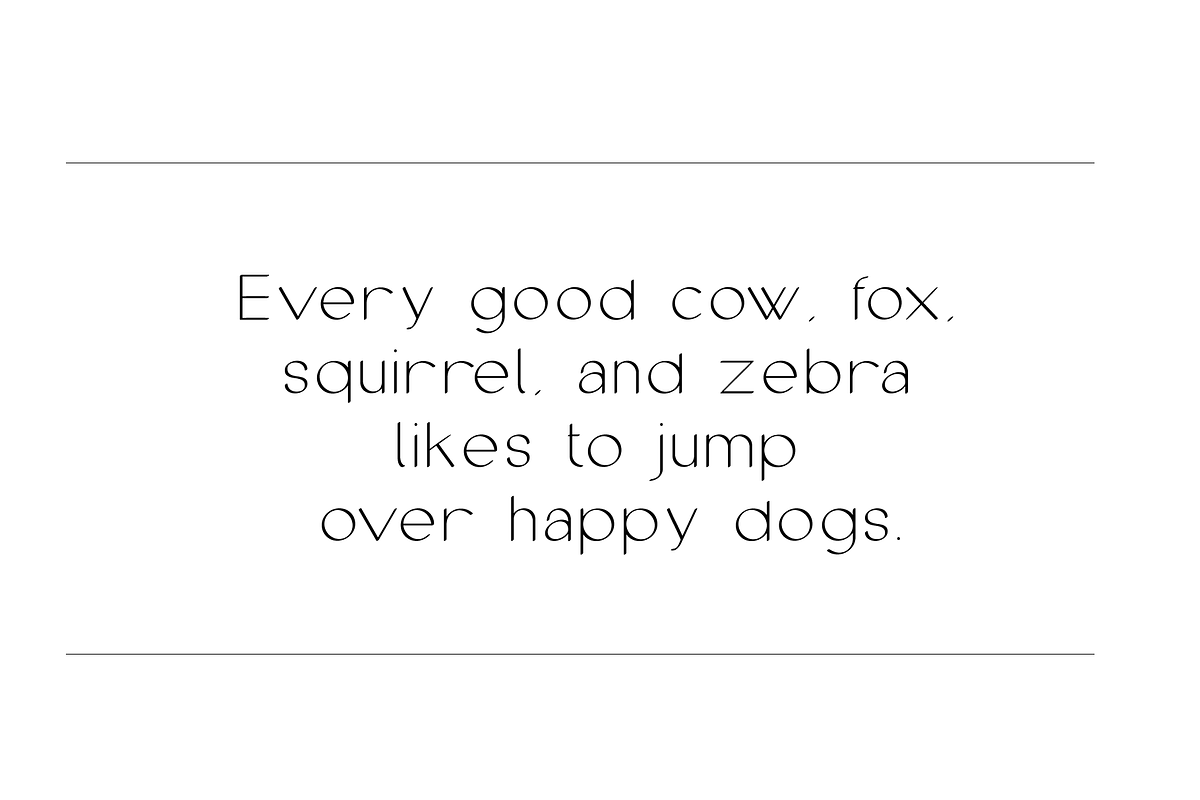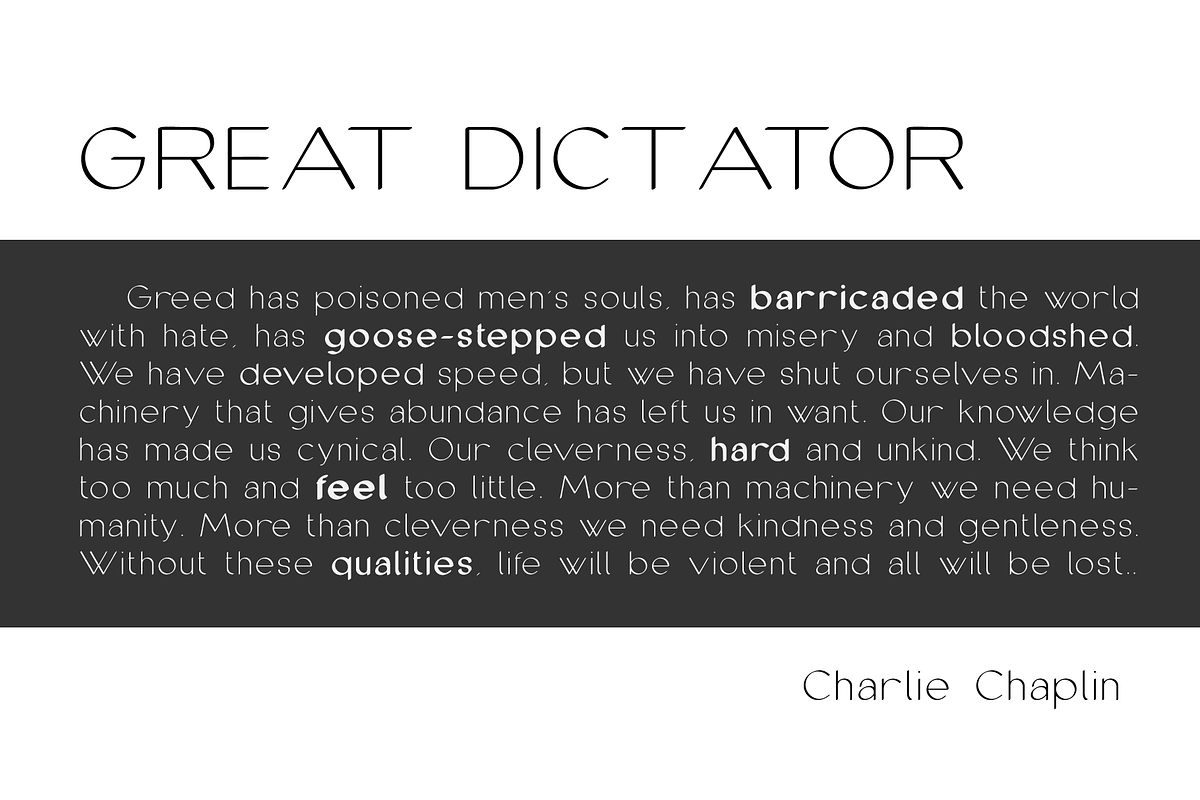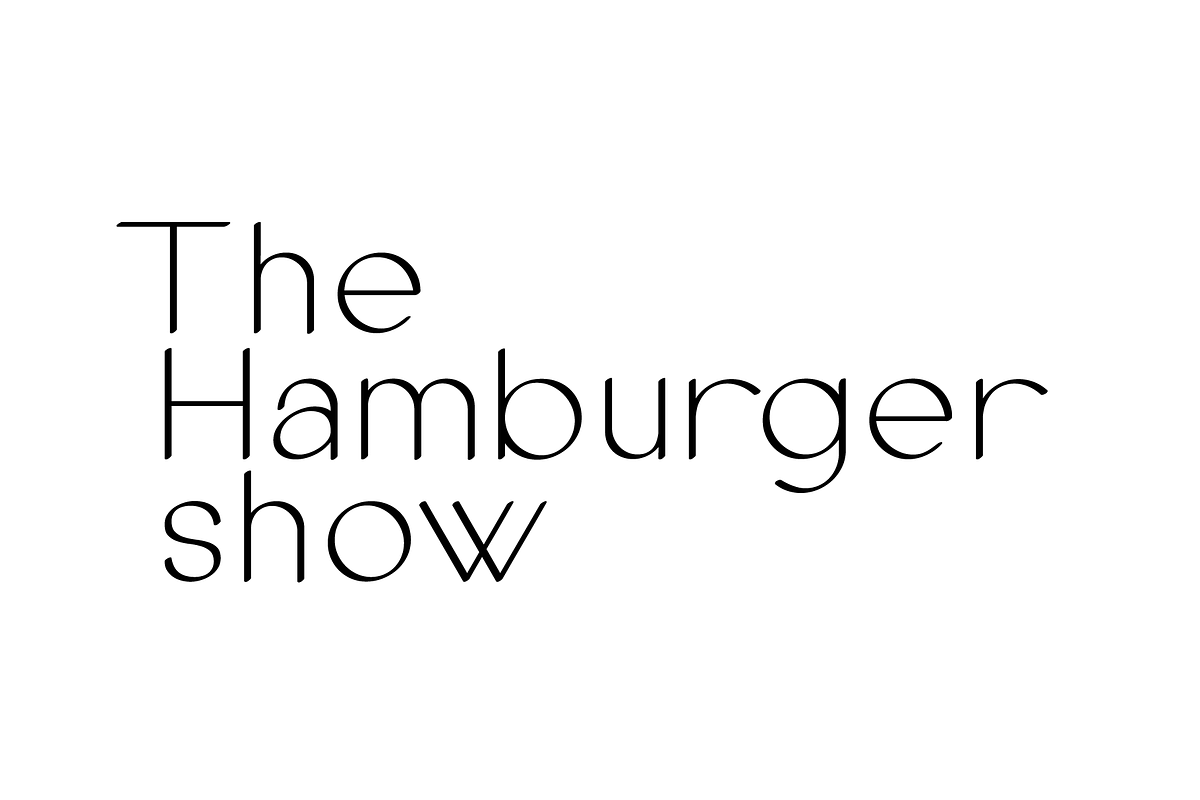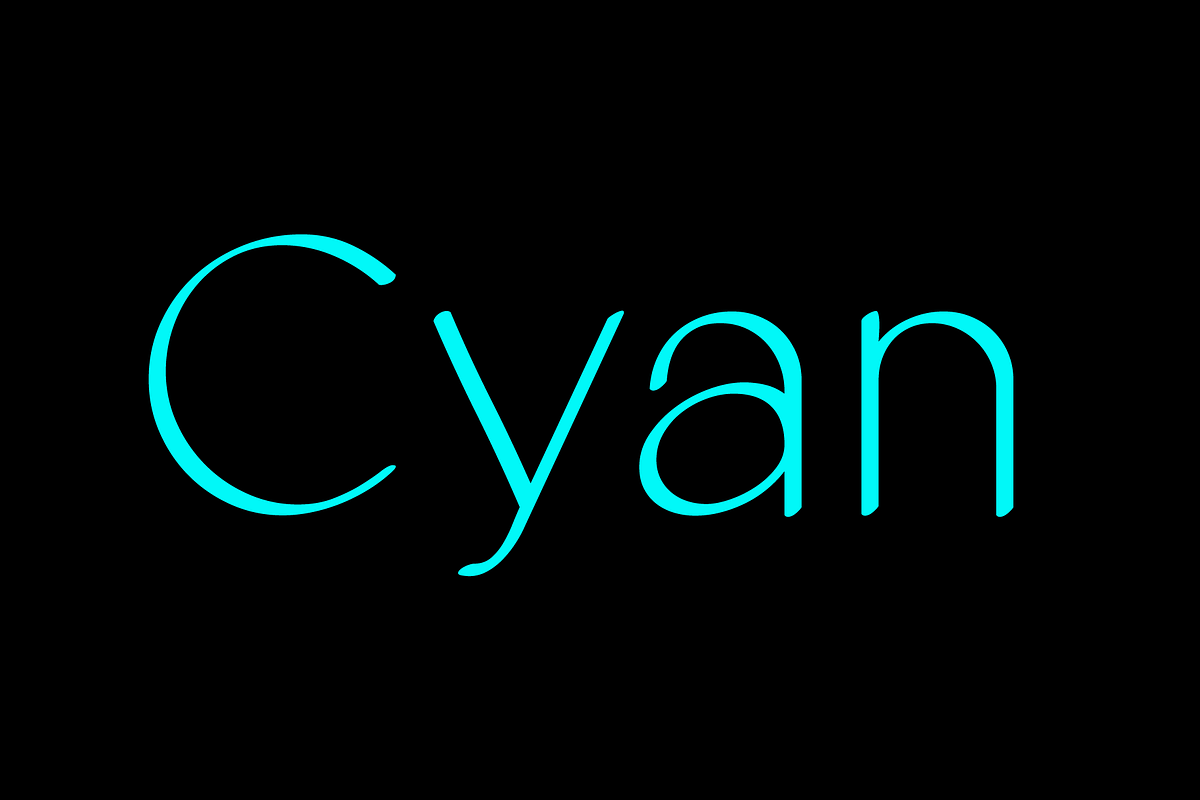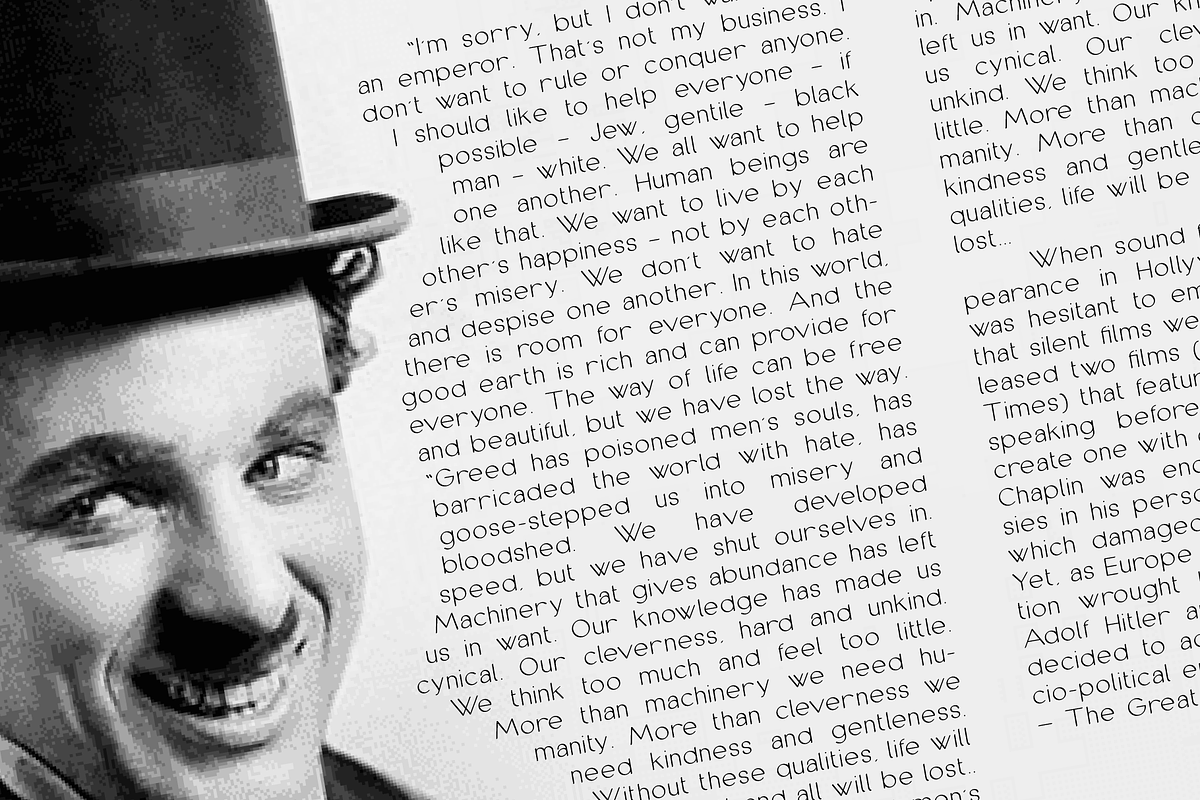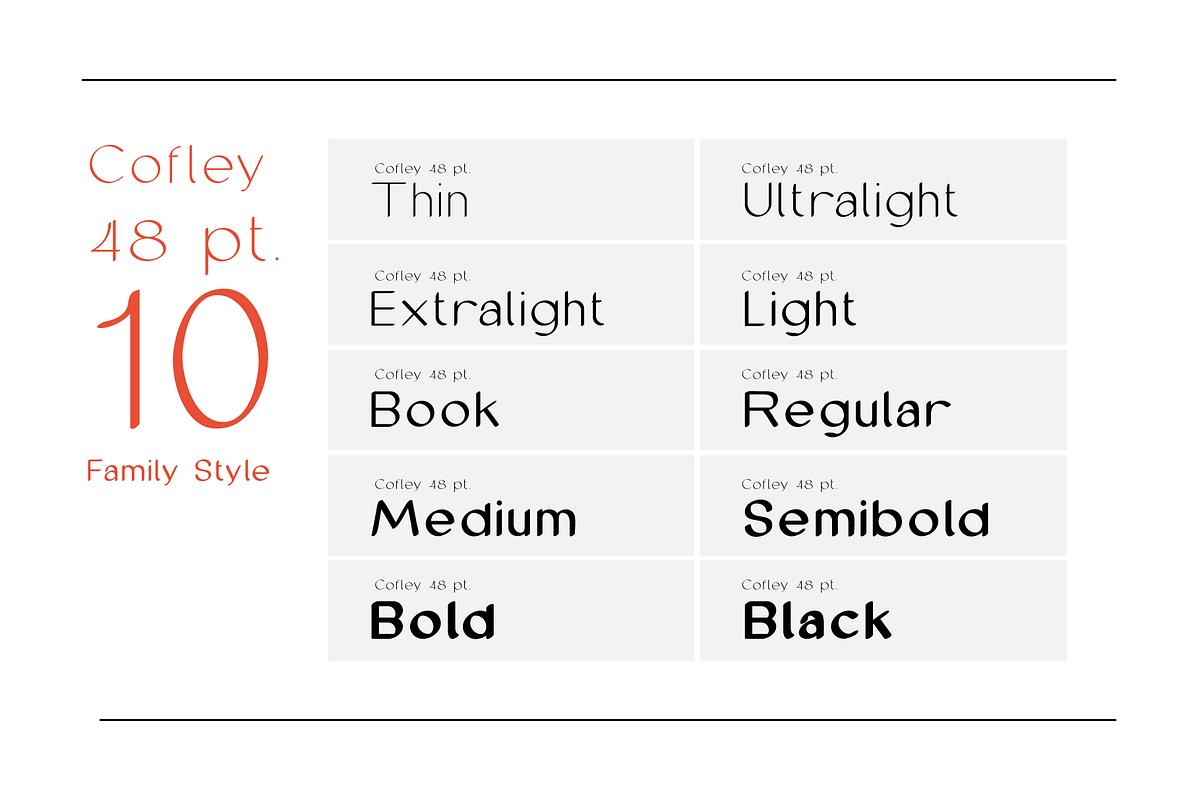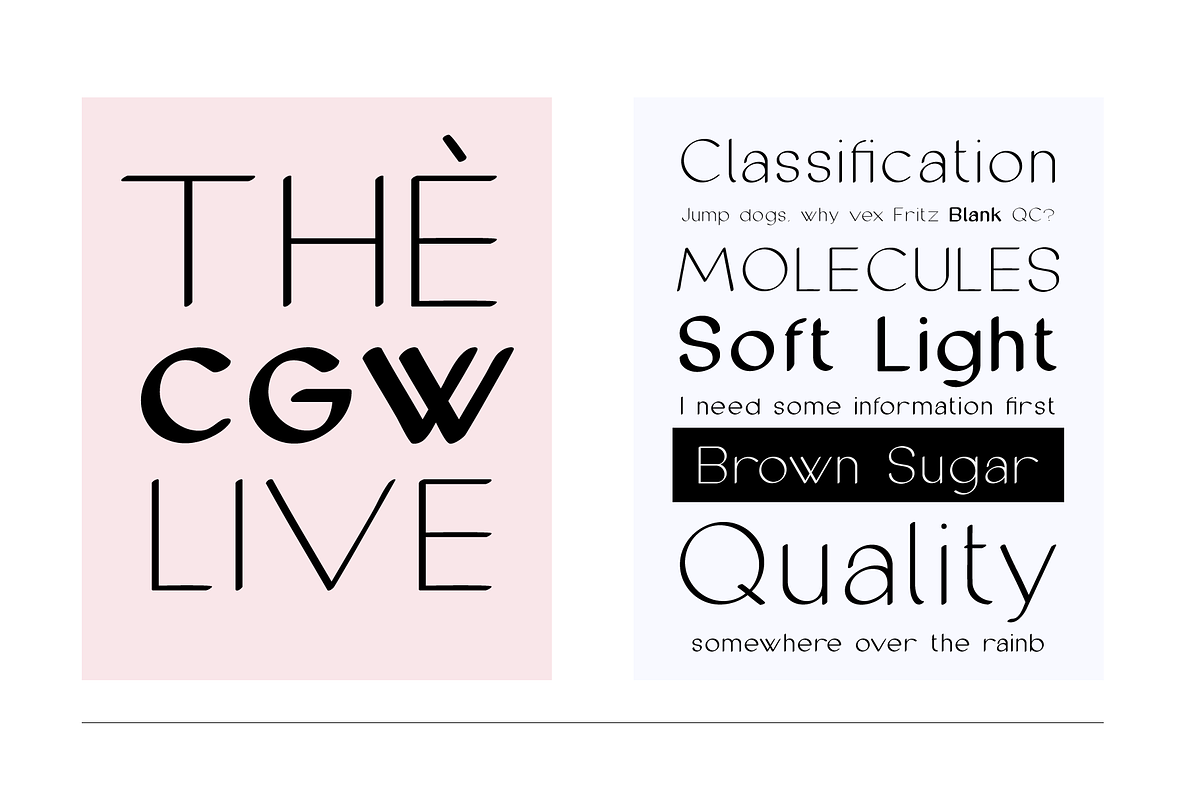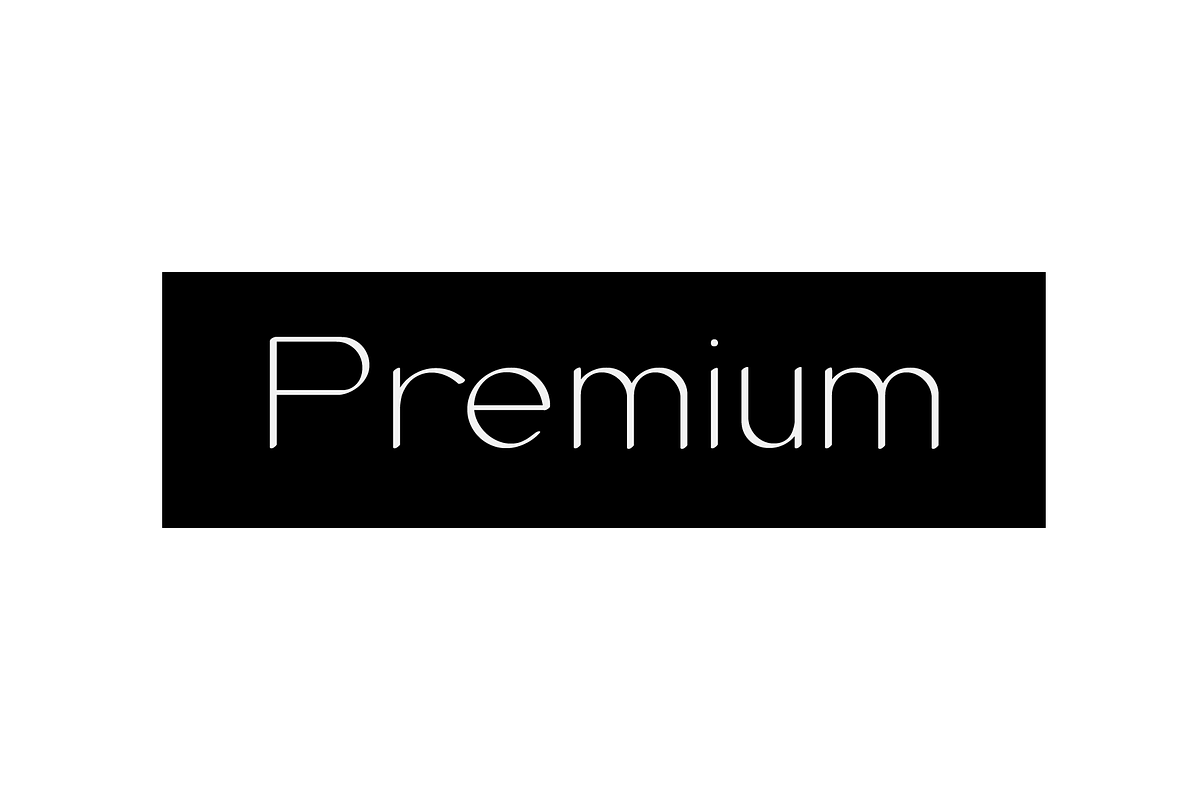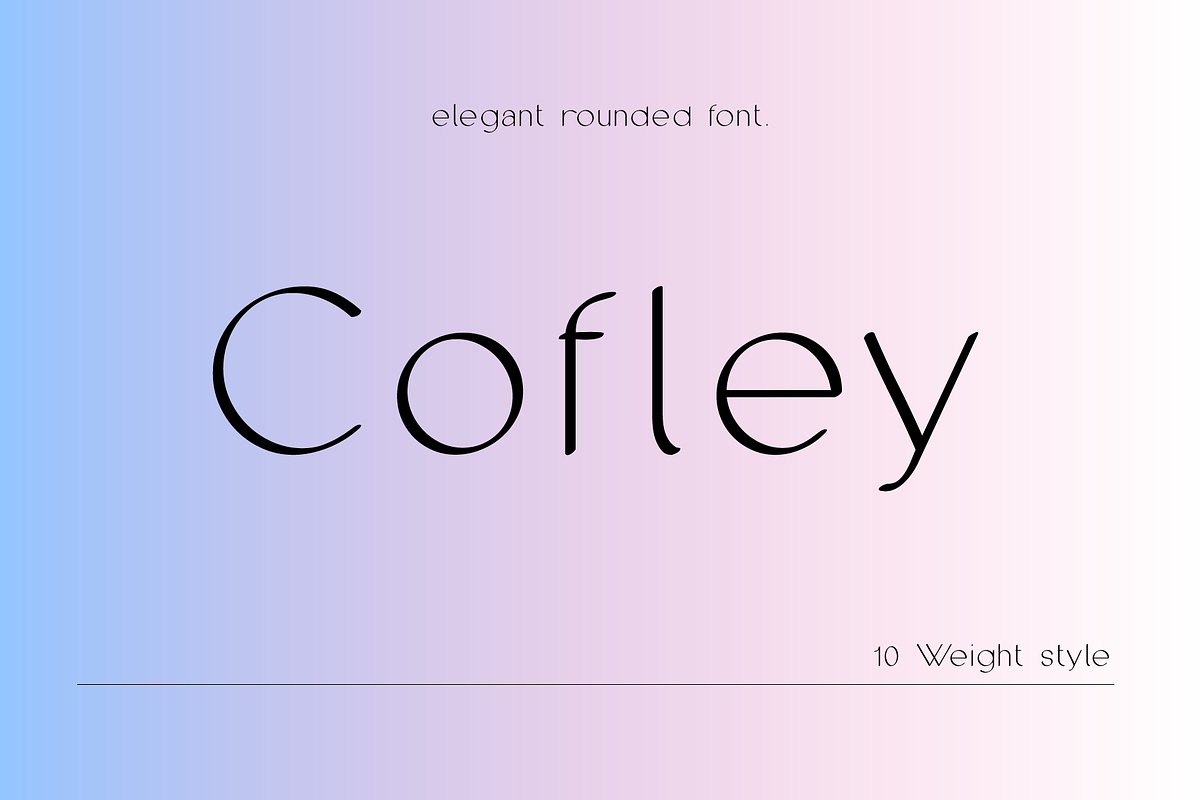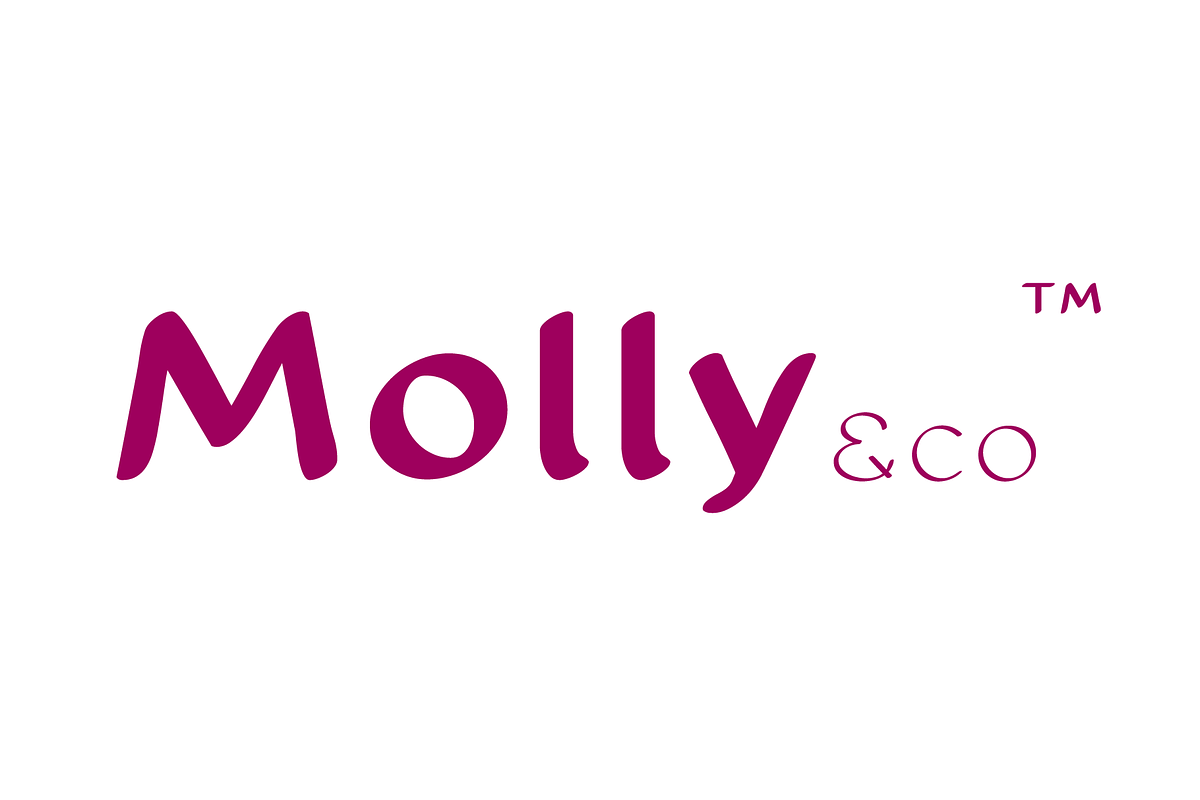
Cofley - 10 Weight style sans serif
Cofley – Modern Rounded Sans Serif Font Family
Meet Cofley, a modern rounded sans serif font family that combines clean geometry, soft curves, and timeless elegance. Designed for versatility, Cofley offers a contemporary look that feels both professional and approachable, making it an excellent choice for a wide range of creative and commercial design projects.
The family includes 10 carefully crafted weights, from Thin to Black, giving you complete control over typography hierarchy and visual impact. Every weight contains 331 glyphs with Central European multilingual support, allowing you to create designs for international audiences with confidence.
Cofley is perfect for branding, logo design, visual identity, packaging, advertising, editorial layouts, magazines, books, websites, mobile applications, UI/UX design, social media graphics, presentations, posters, headlines, signage, and marketing materials. Its rounded letterforms create a warm, friendly personality while maintaining the clean appearance expected from a modern sans serif typeface.
Whether you're building a minimalist brand, designing a premium product package, or creating eye-catching digital content, Cofley delivers exceptional readability in both large display sizes and smaller body text. The balanced proportions, smooth curves, and consistent spacing make it a dependable font family for professional designers, agencies, entrepreneurs, and content creators alike.
If you're looking for a versatile rounded sans serif that blends elegance, readability, and modern style, Cofley is the perfect addition to your font collection.